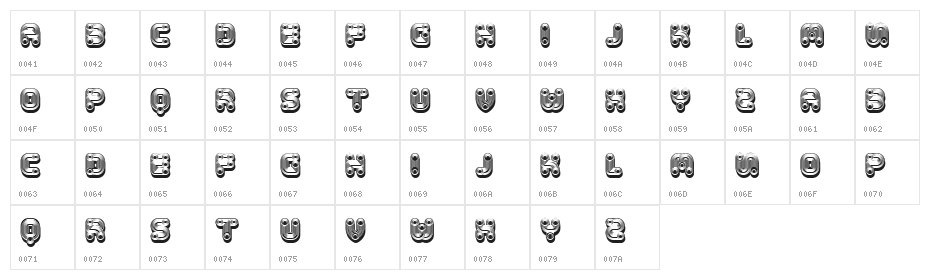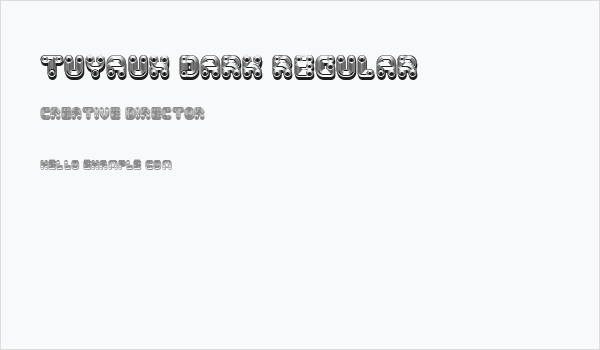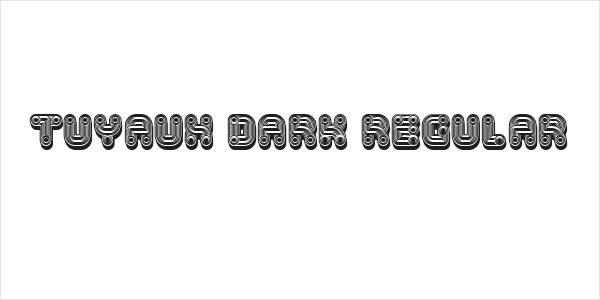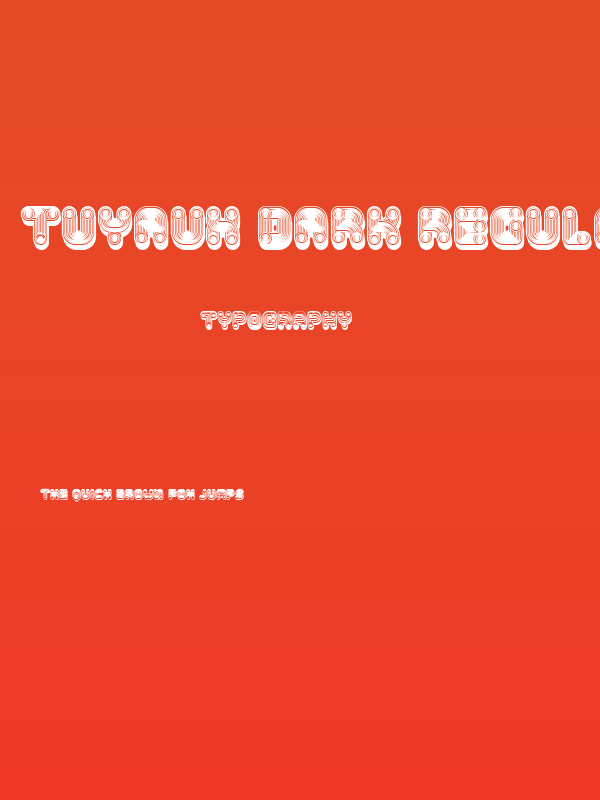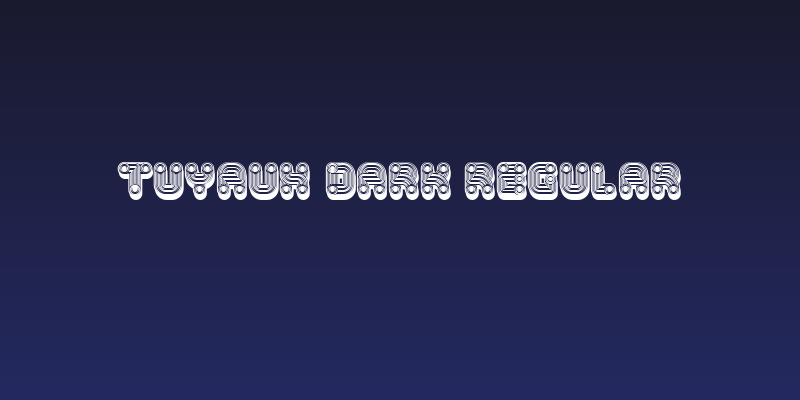
Tuyaux Dark Regular Font
Tuyaux Dark Regular Description
This font features a bold, decorative style with a unique, layered design that creates a three-dimensional effect. The characters are composed of multiple concentric lines, giving them a tubular appearance. This intricate design adds depth and complexity, making it stand out in any visual composition. The font maintains a consistent thickness throughout each character, contributing to its bold and striking presence. The rounded edges and smooth curves enhance its modern and playful aesthetic, making it suitable for creative and eye-catching projects.
Proposed ProjectsIdeal for posters, album covers, branding, and any project requiring a bold, eye-catching typeface.